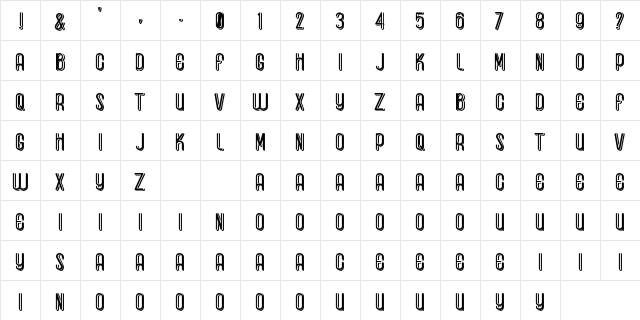
Baseboy Greak Regular
Design Context for Baseboy Greak Typeface
Baseboy Greak is a composed and adaptable typeface that performs quietly and consistently across a wide range of design contexts.
Pro Tip: Use Baseboy Greak in both headline and body roles to test its range before committing to a single application.